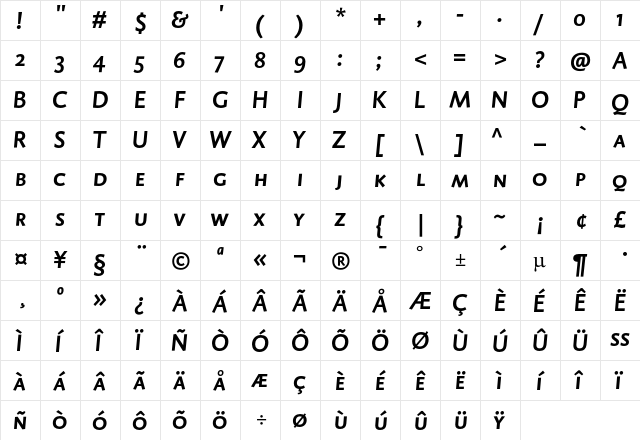
DTL Caspari T Caps Bold Italic Font Preview
Design Context for DTL Caspari Typeface
DTL Caspari takes a measured approach to typography — its balanced proportions and neutral character make it a reliable workhorse for both digital and print work. Its italic angle brings a sense of urgency and motion to the letterforms. The heavy weight commands attention and anchors typographic hierarchies.
Pro Tip: Try DTL Caspari for annotation and caption copy alongside an upright companion — the contrast in angle creates a dynamic but ordered typographic system.